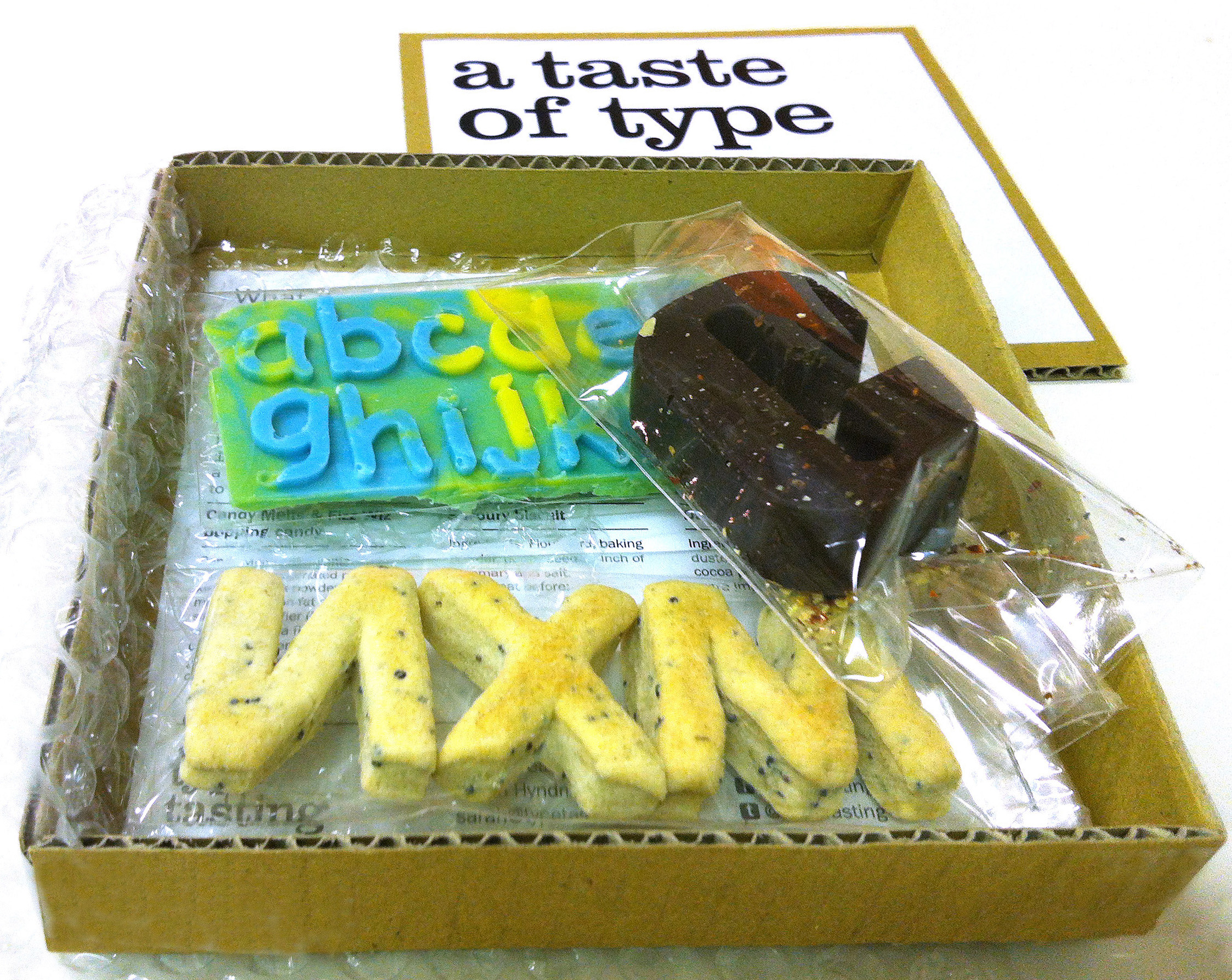
Dazed & Confused “How to start a revolution with Comic Sans”
By Sarah Hyndman
I chatted to Louis Bradley of Dazed and Confused Magazine about typographic rebellion and how the ultimate way to rebel against the increasing ubiquity of the sans serif might be to use fonts that provoke a reaction like Comic Sans or Papyrus.
“How to start a revolution with Comic Sans. Could something as simple as font have been the catalyst for the spread of punk or behind Donald Trump’s win? We explore the hidden power of typeface”
What does Typography taste like?
At Type Tasting I’ve been posing the question “what would type taste like?” I’ve put together a tasting pack to kickstart the discussion featuring Impact as dark chocolate laced with chilli, Helvetica as plain biscuits and Comic Sans as candy melts with popping candy.
The tasting pack comes complete with a chocolate box style description sheet introducing each typeface along with the suggested flavours. What do you think? What would your favourite typefaces taste like? Details of my suggestions with recipes are below…
“Typefaces, they don’t really matter do they?” John Humphrys
“There is going to be a celebration at the London Design Festival this year to honour typefaces. Sarah Hyndman, a graphic designer who is involved in the festival, evaluates the promotion of London as the design capital of the world.” Listen to the interview…